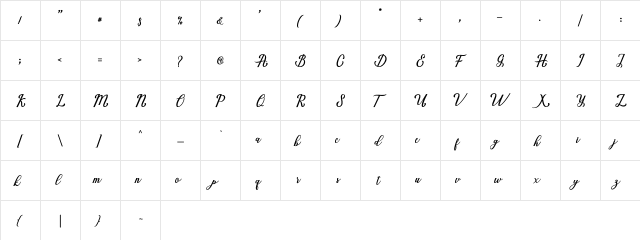
Marria Script Regular
Design Context for Marria Script Typeface
Marria Script brings a calligraphic fluidity to the page — its connecting strokes and expressive curves give it an unmistakably human quality.
Font Pairing: Combine Marria Script with a simple geometric sans for maximum contrast — the tension between flowing curves and clean structure is a classic typographic pairing.
Pro Tip: Use Marria Script for short runs of text — names, titles, or taglines. Extended body copy in script faces tires the eye quickly.